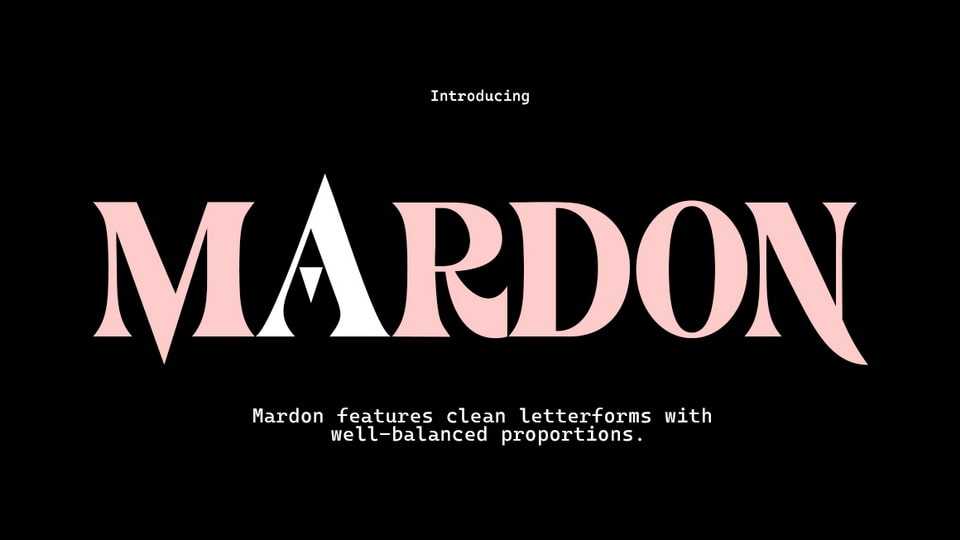
Download Mardon font, a sophisticated serif typeface that exudes a timeless elegance. Its clean lines and balanced proportions create a sense of refinement and sophistication.
Designer: Aqeela Studio